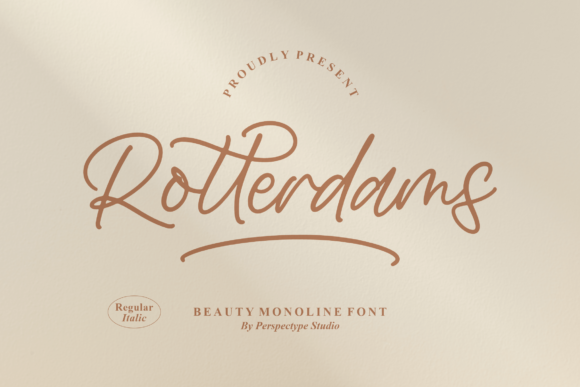
Introducing Rotterdams, an exquisitely graceful script font that will captivate your audience with its romantic allure. Crafted by the renowned Perspectype, this enchanting typeface will transform your designs into breathtaking works of art.
With its elegant curves and alluring script style, Rotterdams is the perfect choice for expressing yourself through the written word. Whether you're creating heartfelt quotes for social media, designing eye-catching logos, or printing stylish t-shirts, this font will add a touch of magic to your creations.
Experience the joy of crafting stunning designs that resonate with your customers. Rotterdams empowers you to create personalized branding that will leave a lasting impression. Its versatility extends across a wide range of creative projects, ensuring that your message will shine through in any context.
Immerse yourself in the beauty of this exquisite script. Rotterdams is the key to unlocking your creative potential, inviting you to craft designs that evoke emotion and capture the essence of your brand. Let this font be your guide on a journey of artistic expression, where every letter dances with elegance and grace.